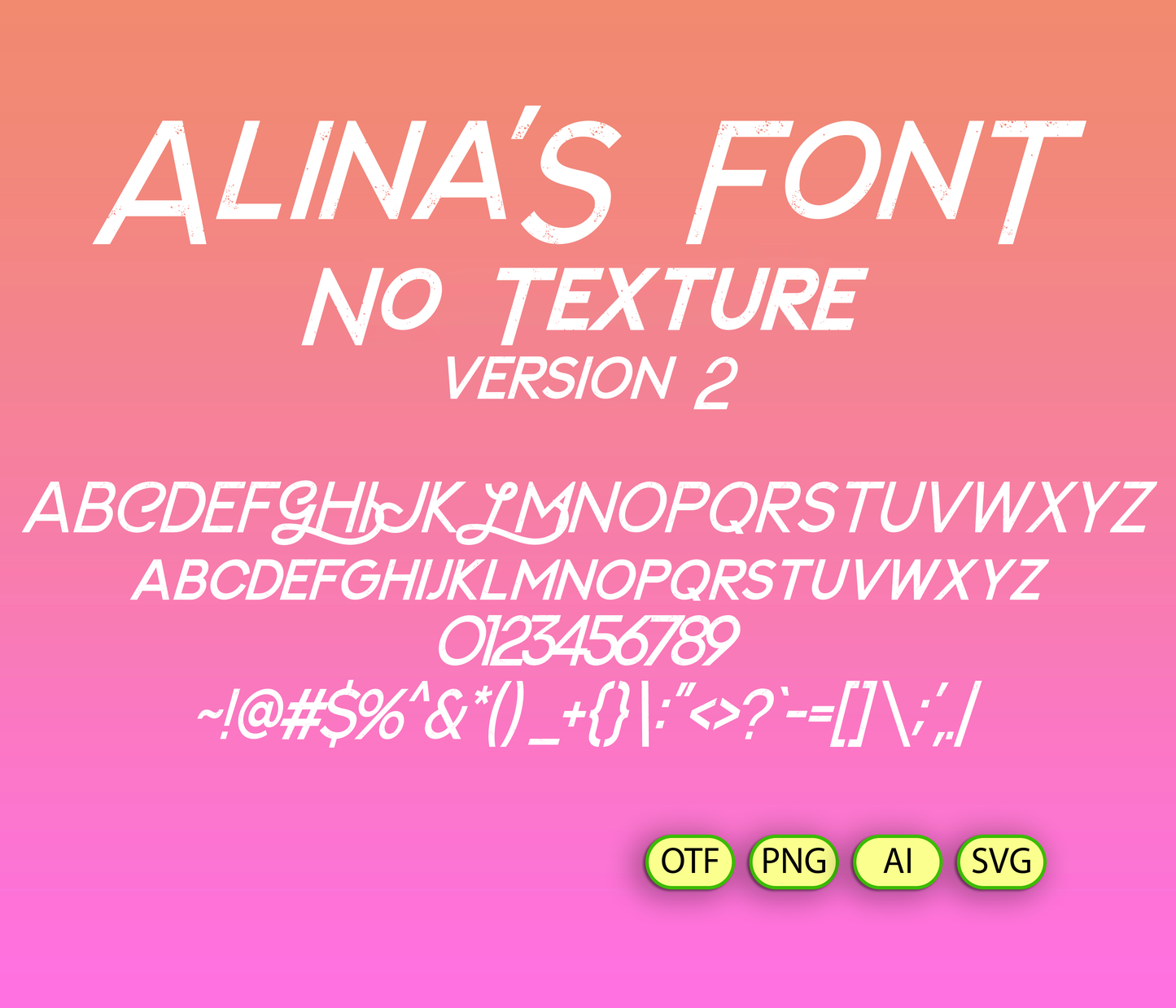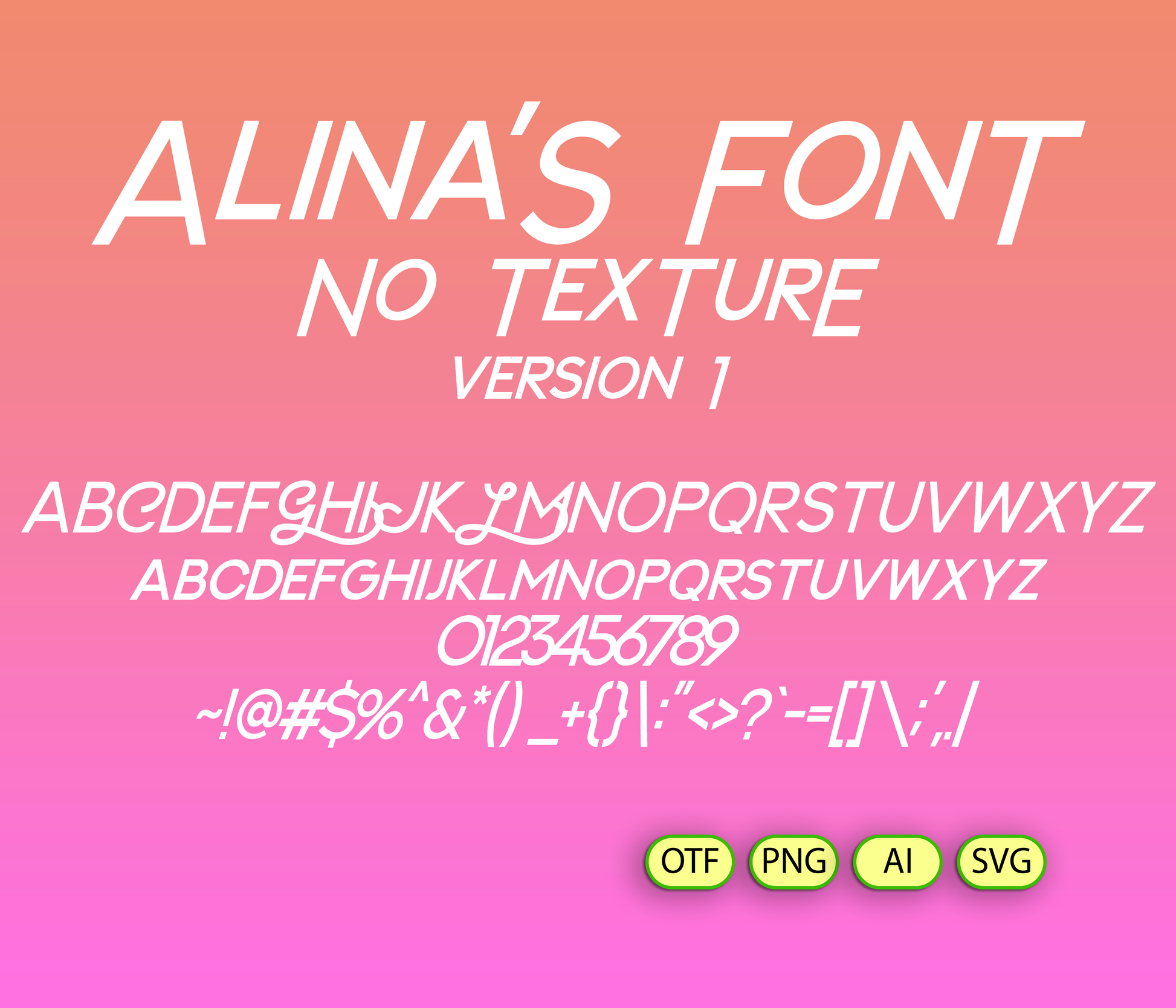
Telenovela Tales Font
Celebrate Whimsy and Warmth with the Telenovela Tales Font
Dive into the playful and poignant world of Telenovela Tales with our specially designed font, inspired by the unique storytelling and visual flair of a beloved series. Perfect for fans, event planners, and designers looking to capture the telenovela-inspired drama mixed with heartwarming comedy, this font ensures your projects resonate with the emotional and quirky essence of the show.
Reflecting the vibrant and expressive nature of Telenovela Tales, this font features elegant, script-like strokes combined with whimsical details, capturing the series' blend of romance and lighthearted humor. It’s equipped with a comprehensive set of characters—uppercase, lowercase, numbers, and special symbols—making it suitable for a broad range of applications:
- Themed Events: Craft beautiful invites and decor for viewing parties or themed celebrations.
- Promotional Materials: Create eye-catching flyers, posters, and social media graphics for related events or merchandising.
- Digital Content: Enhance blogs, fan sites, or any online platform catering to the show’s community.
- Personal Projects: Use in scrapbooking, gift-making, or personalizing home decor with quotes and designs inspired by the show.
- Educational Uses: Ideal for engaging students in creative writing or media studies classes.
Our Telenovela Tales font not only honors the series but also invites you to weave its charming, narrative-rich elements into your creative projects. Whether you’re producing promotional content, designing themed event materials, or crafting personal projects, this font lets you communicate with the playful sophistication and heartfelt warmth that defines Telenovela Tales. Ready to add a touch of drama and romance to your designs? Let this font transform your narrative into something truly special, just like the stories in the show.